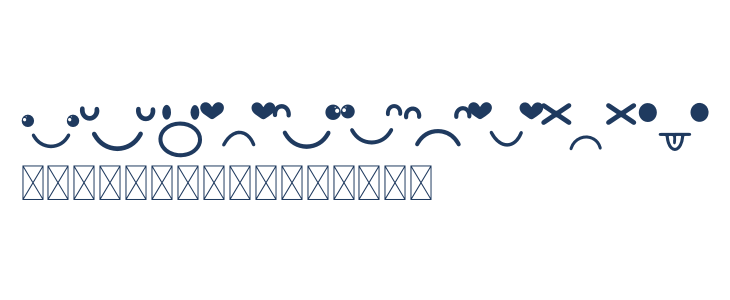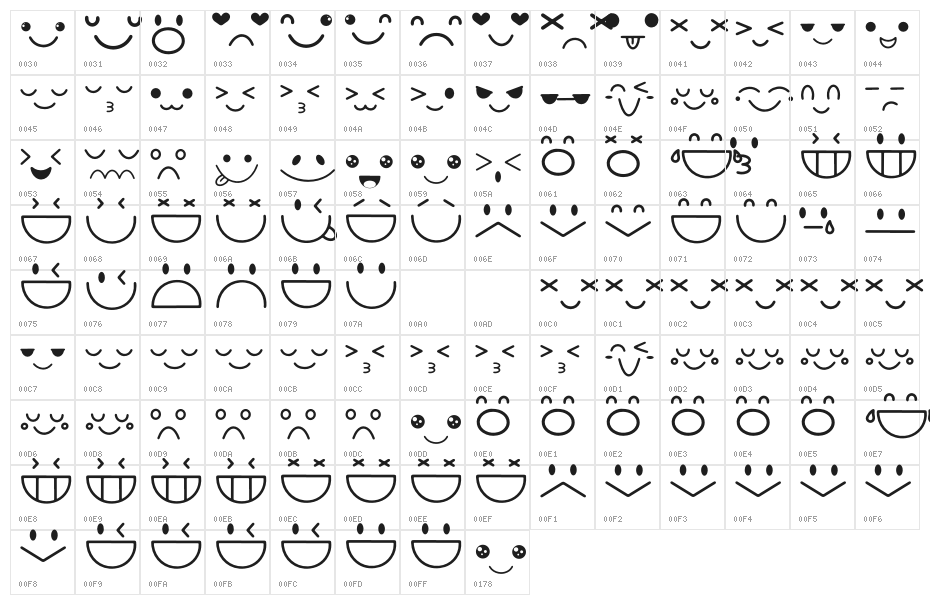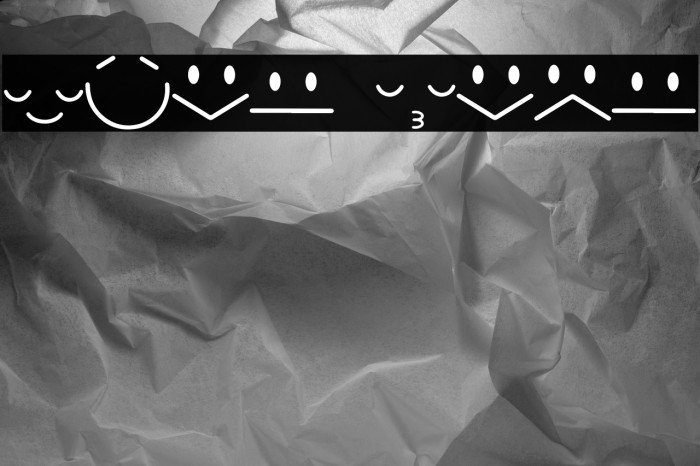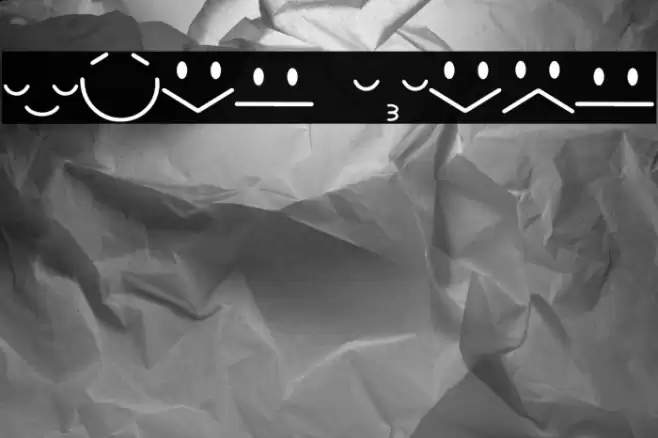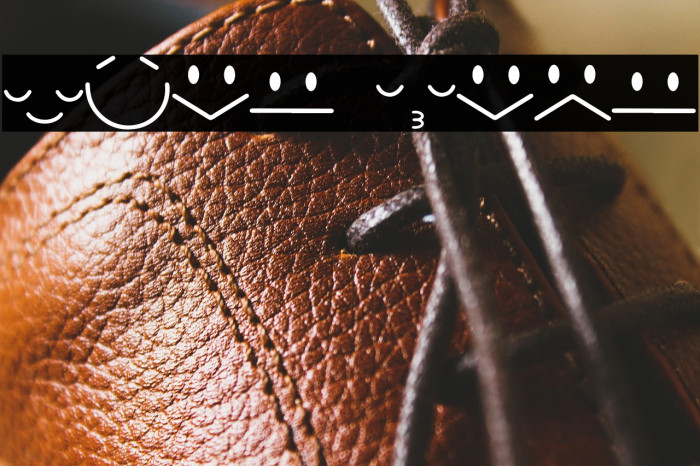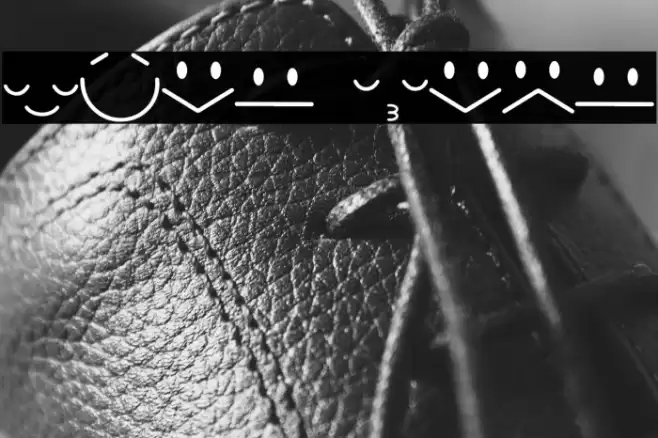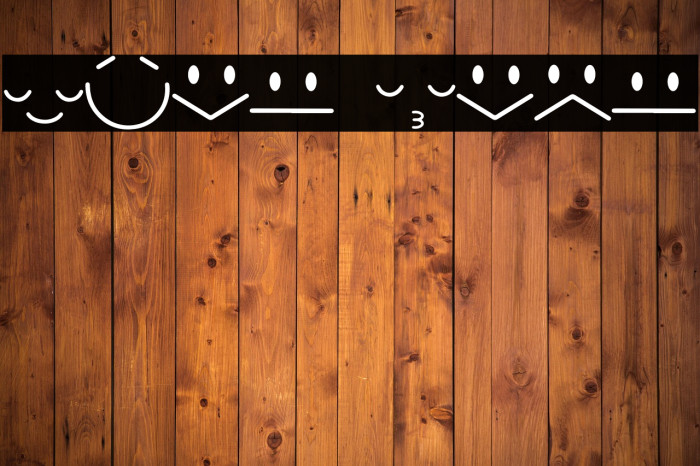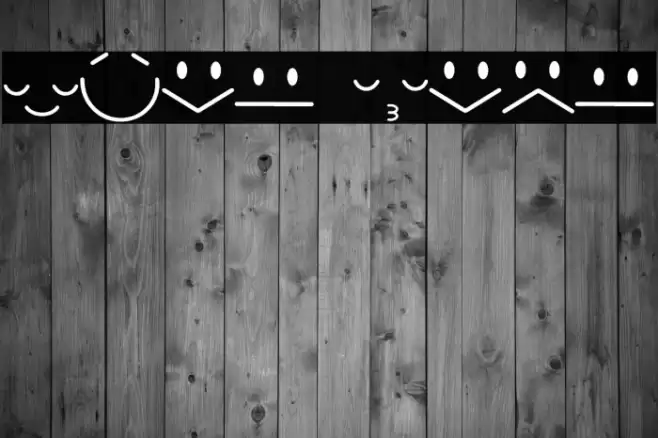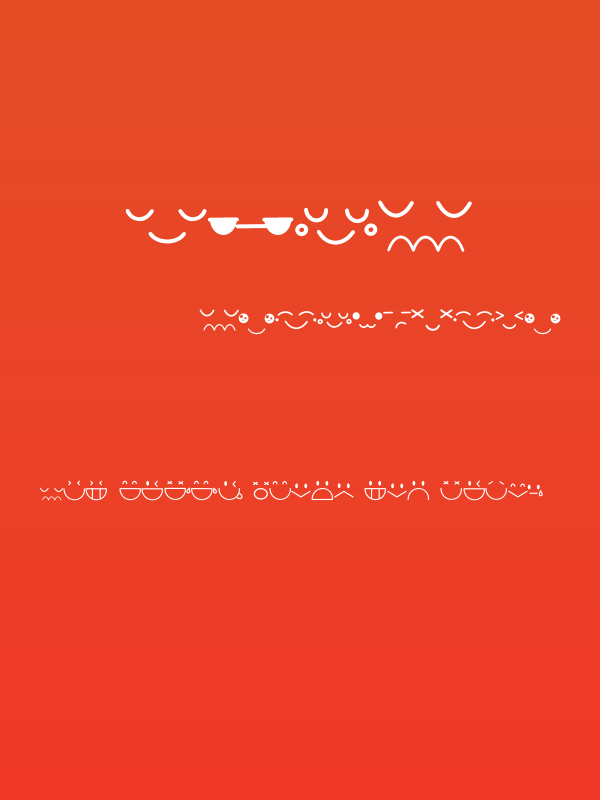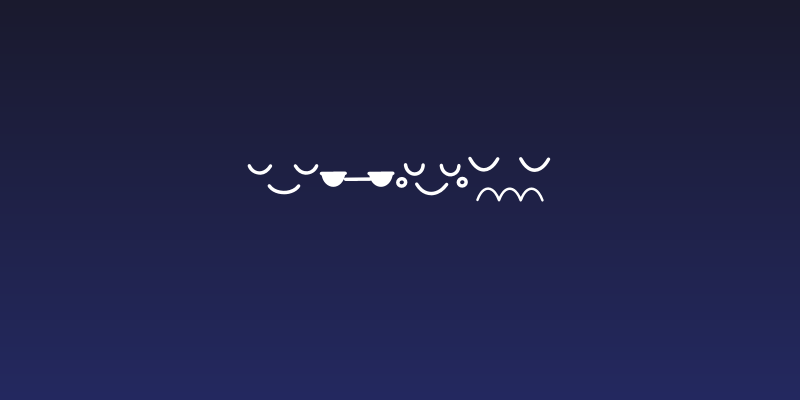
Emot Font
Emot Description
A playful and decorative typeface composed entirely of various emoticon faces and expressions, using simple geometric shapes and lines to represent eyes, mouths, and other facial features. Each character is a unique emoticon, creating a whimsical and expressive visual language.
| Overall Style | Playful, Decorative, Whimsical |
| Use Case | Logos, Headlines, Posters, Social media, Informal designs |
| Proposed Projects | ChildrenΓ’β¬β’s books, greeting cards, playful branding, social media graphics, stickers, posters, and informal invitations. |